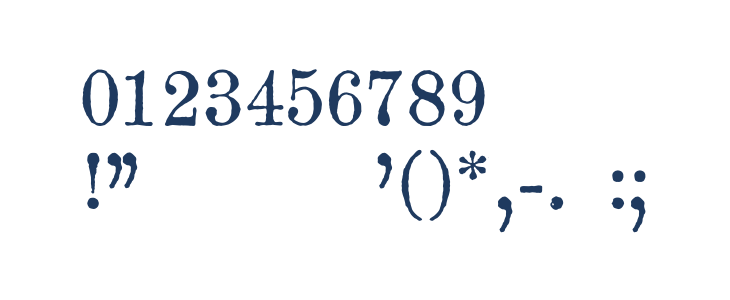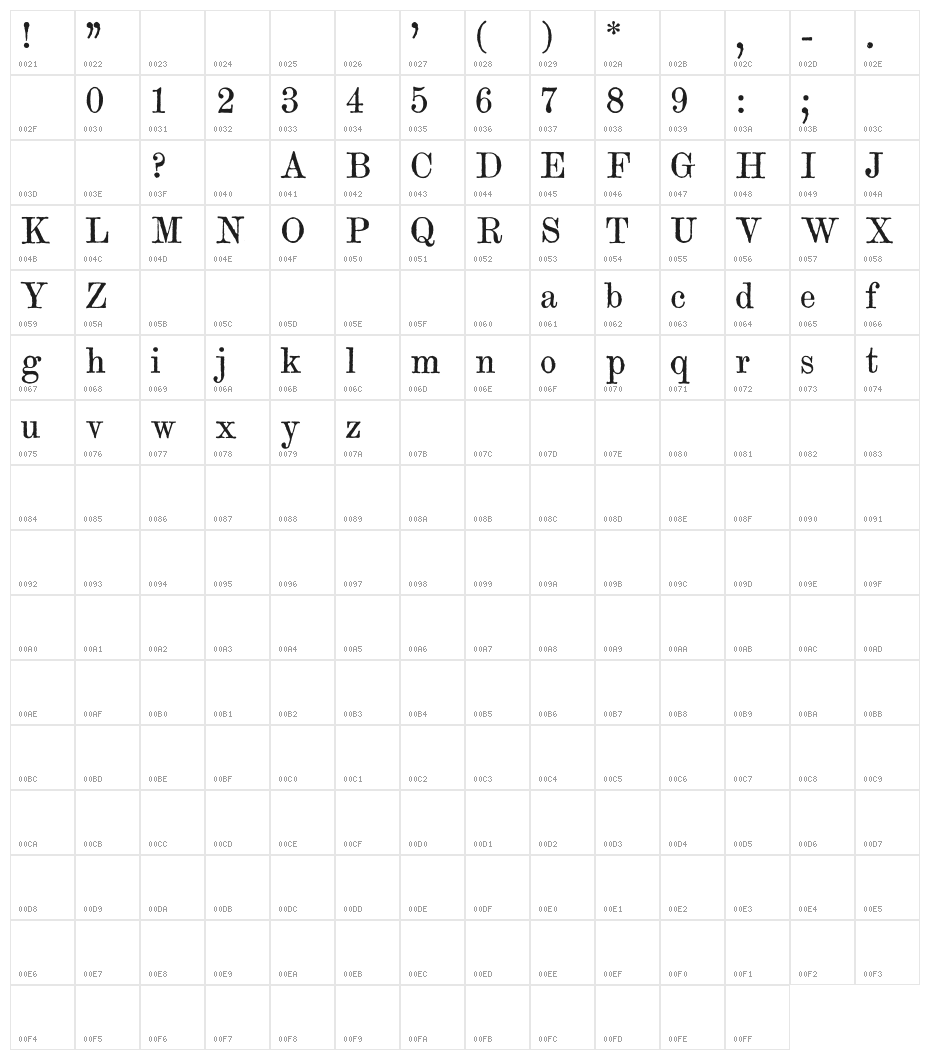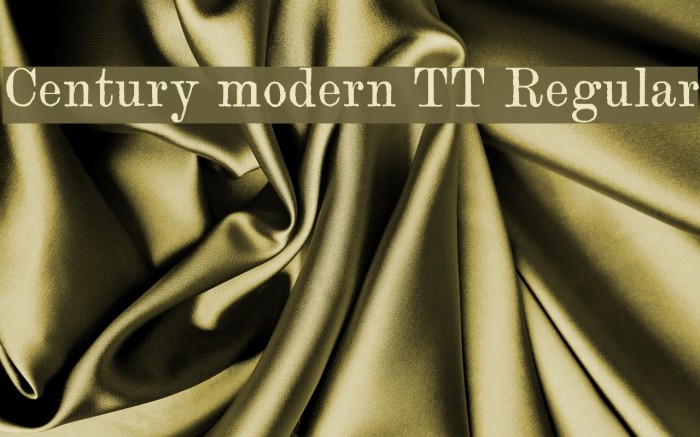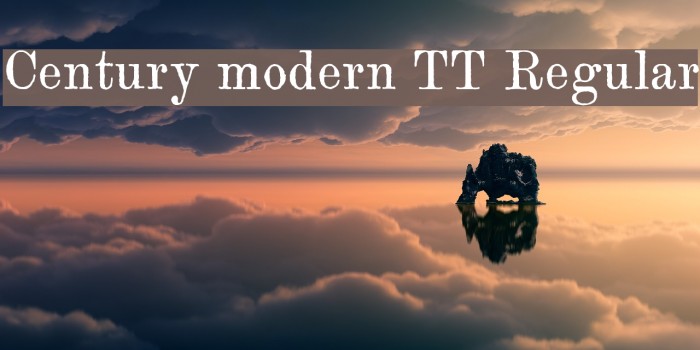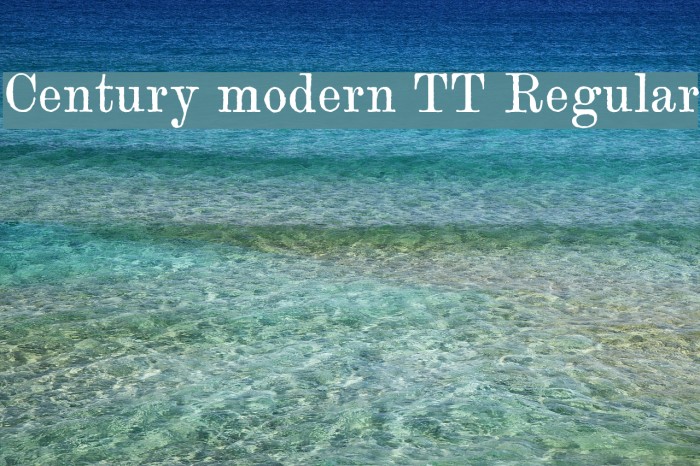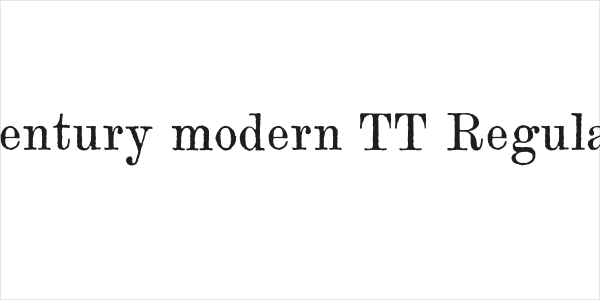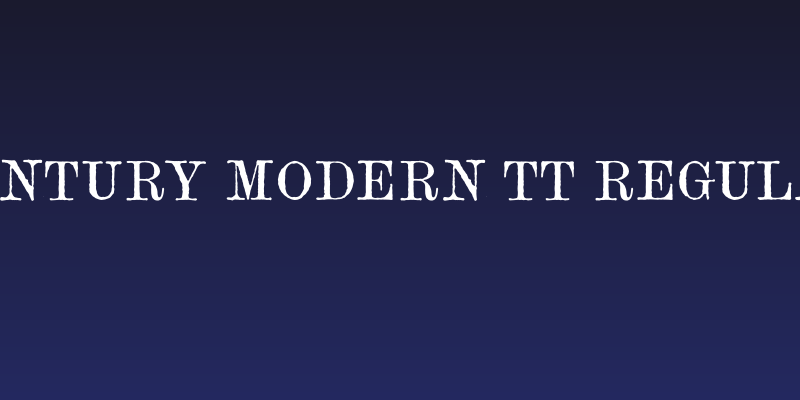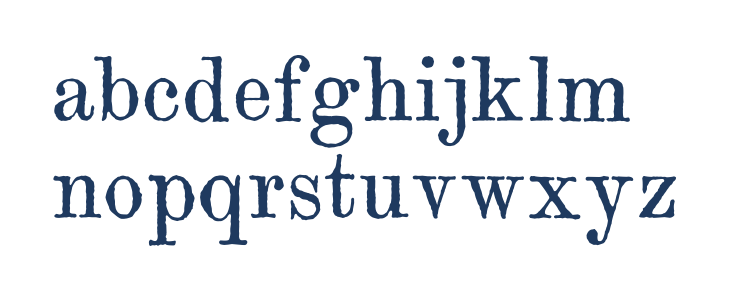
Century modern TT Regular Font
Century modern TT Regular Description
This font exhibits a classic serif style with a modern twist, characterized by its distinct and sharp serifs. The uppercase letters are bold and commanding, while the lowercase letters maintain a consistent and readable form. The numerals are well-proportioned, offering clarity and balance. Special characters are elegantly integrated, maintaining the overall aesthetic. The font's design is reminiscent of traditional typesetting, yet it incorporates contemporary elements that make it versatile for various applications.
| Proposed Projects | Ideal for editorial design, book covers, branding projects, and any application requiring a blend of tradition and modernity. |